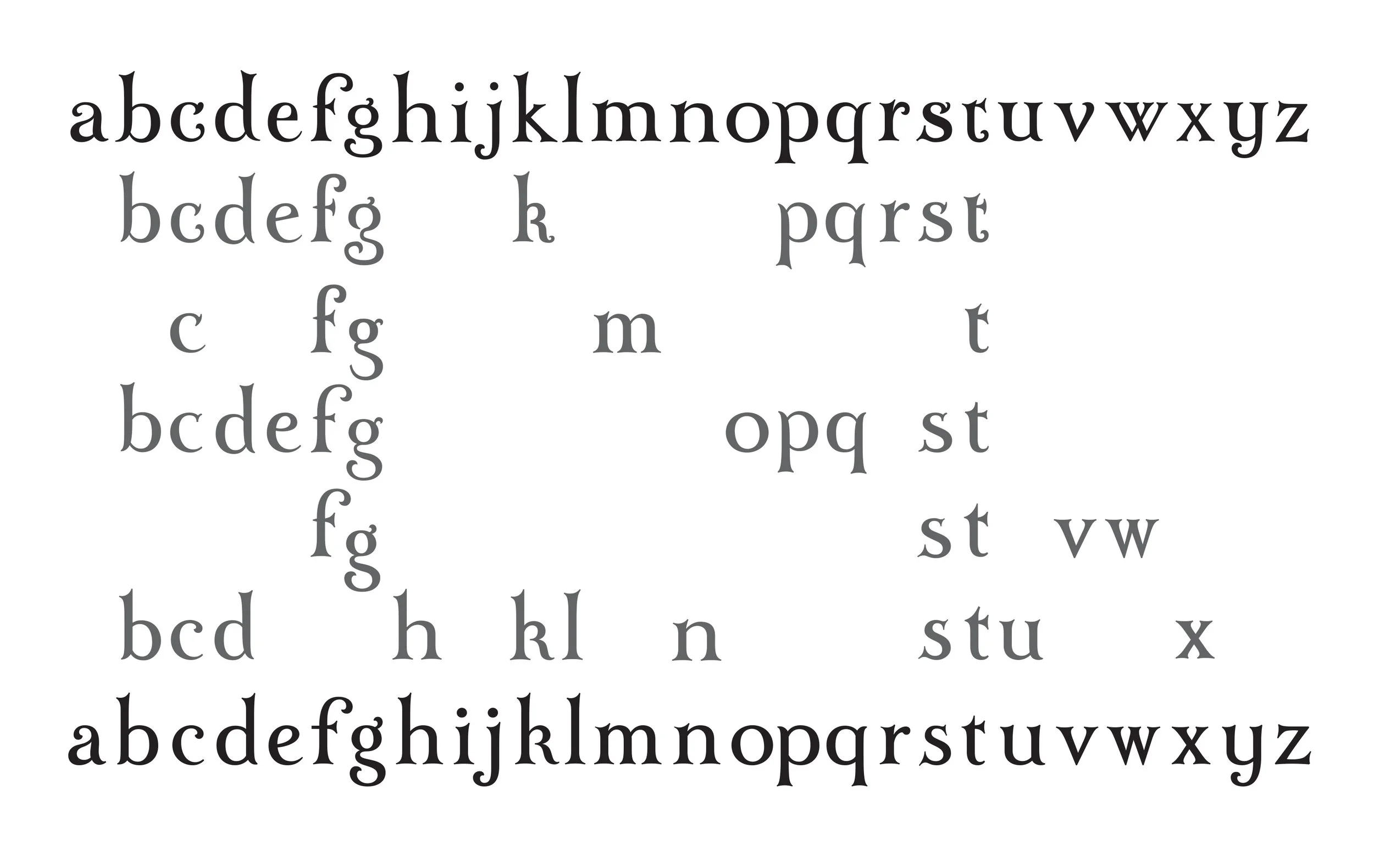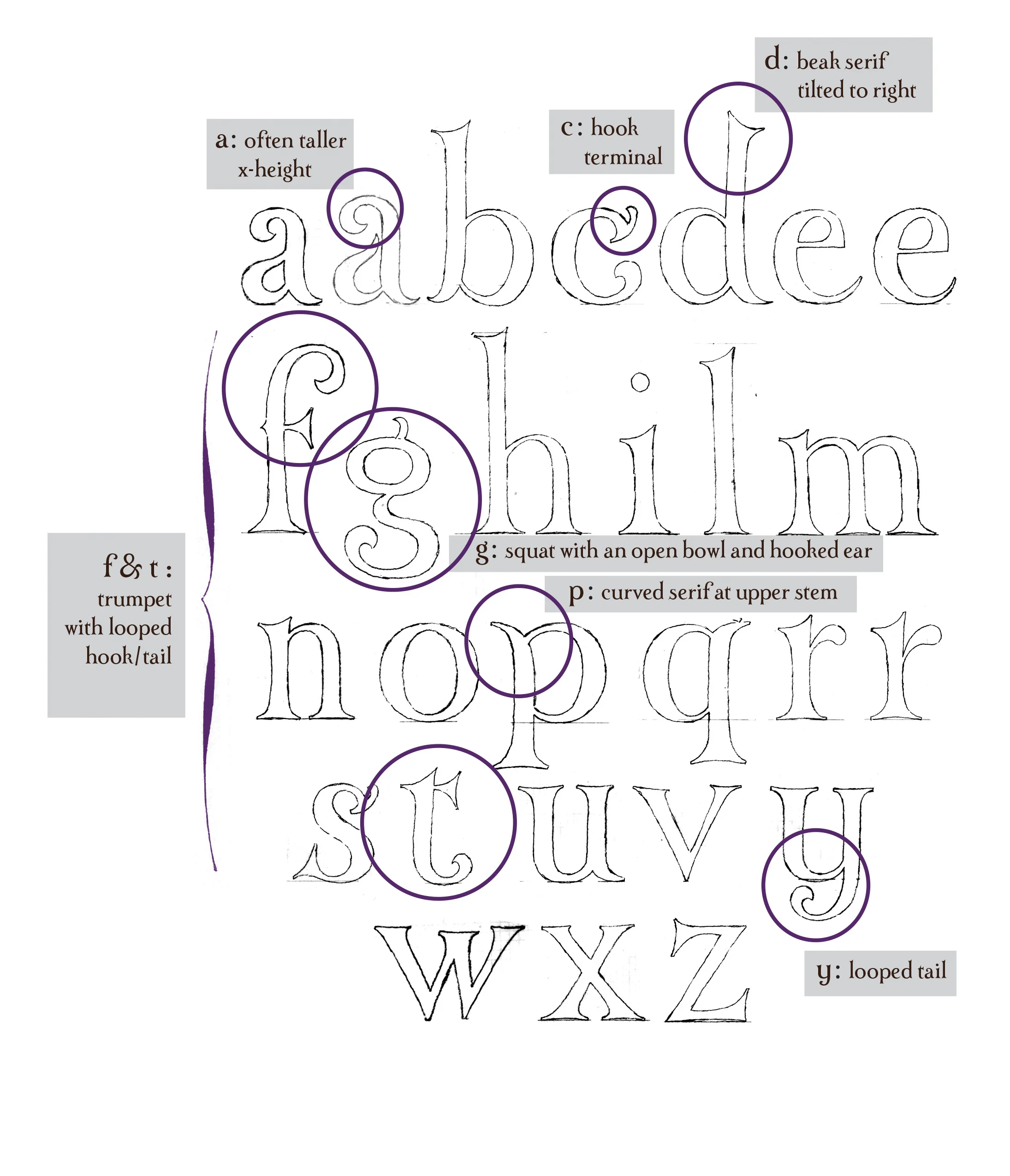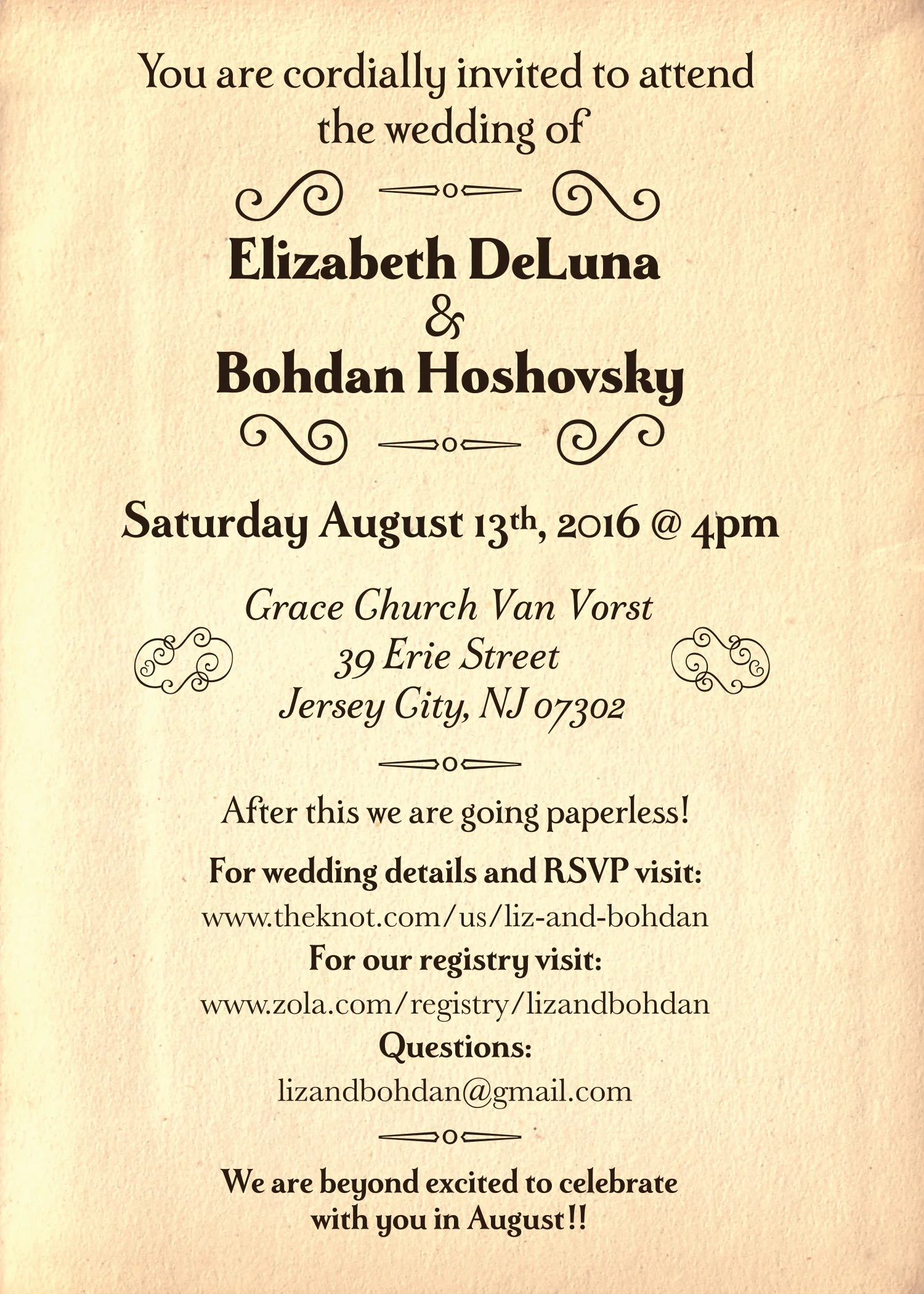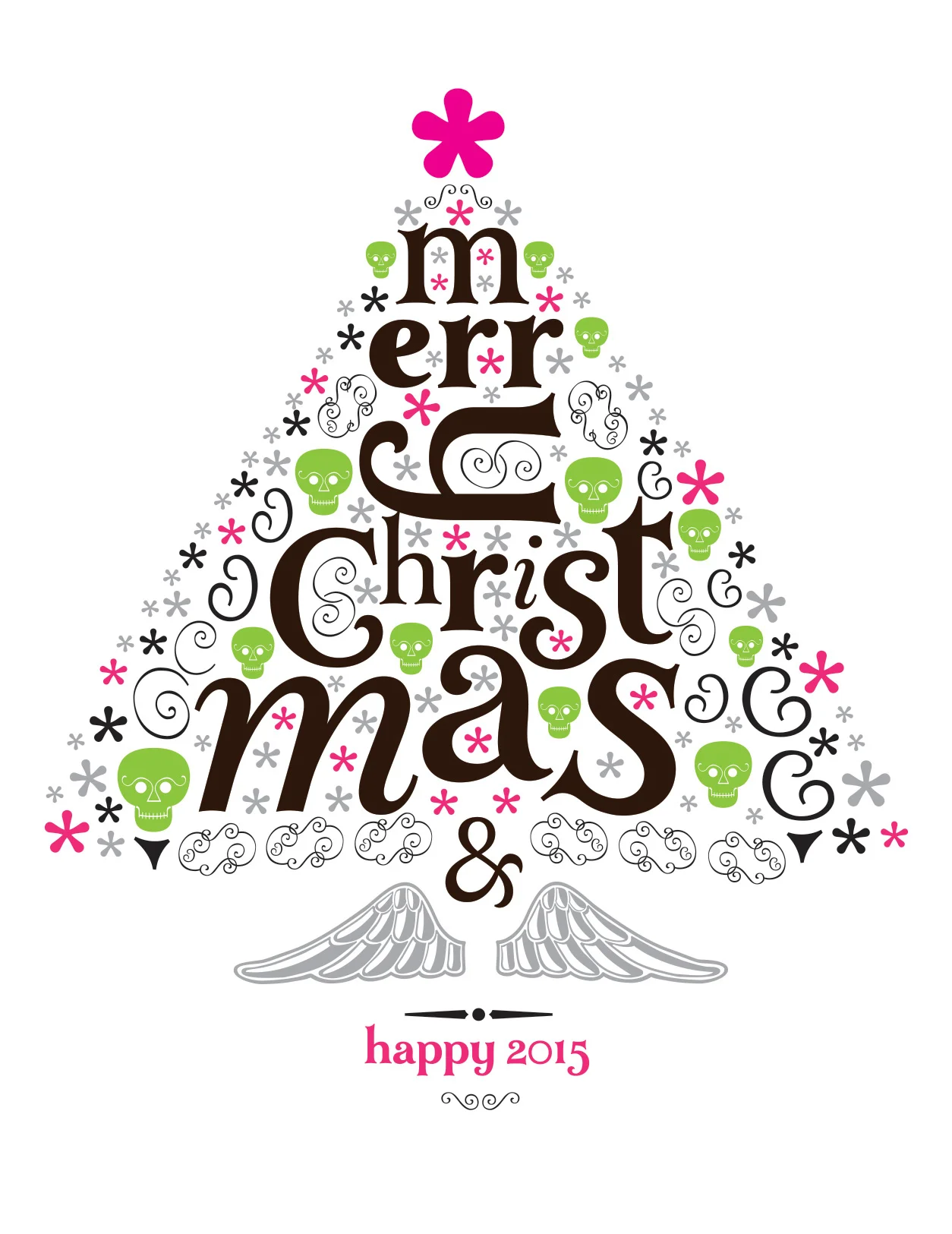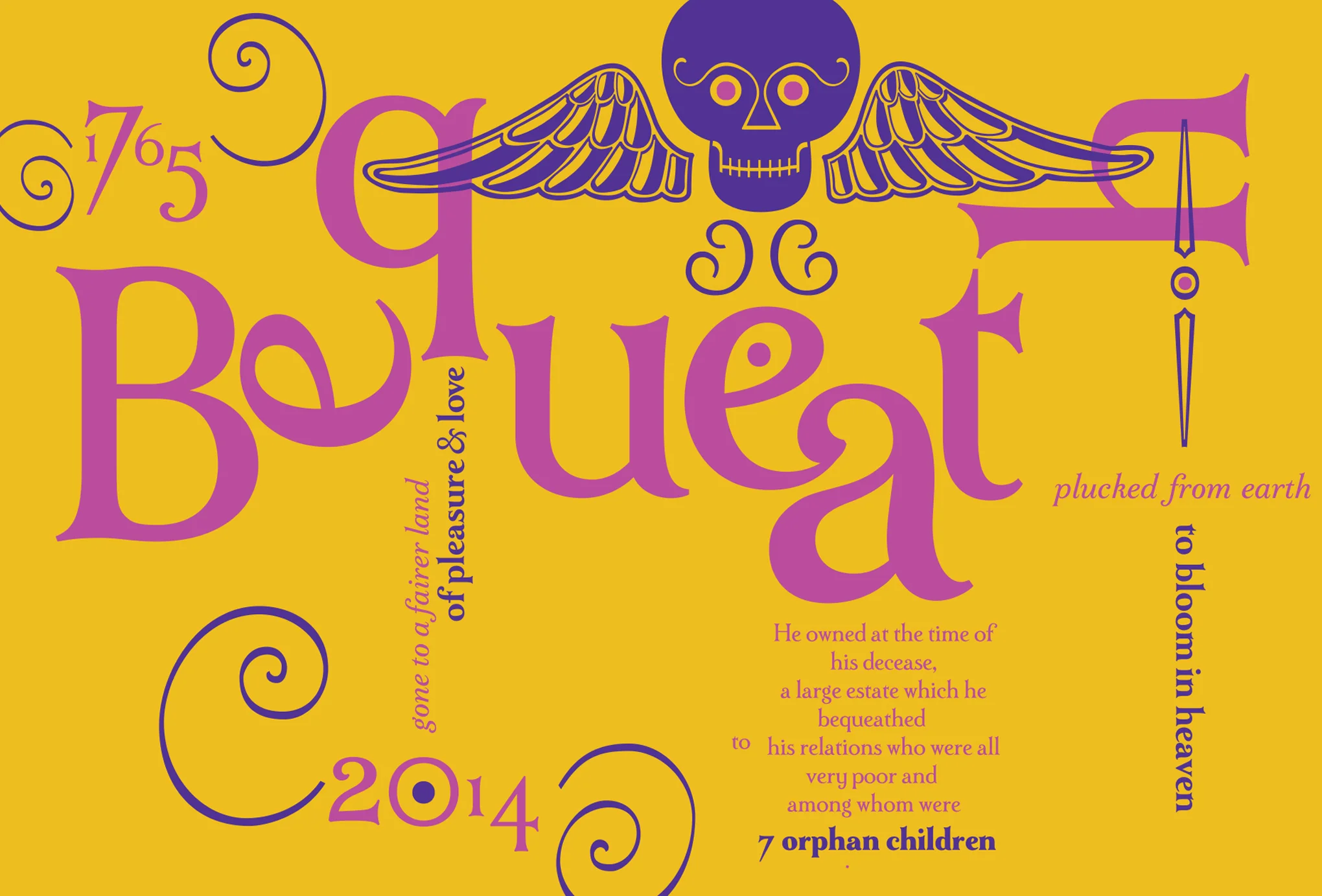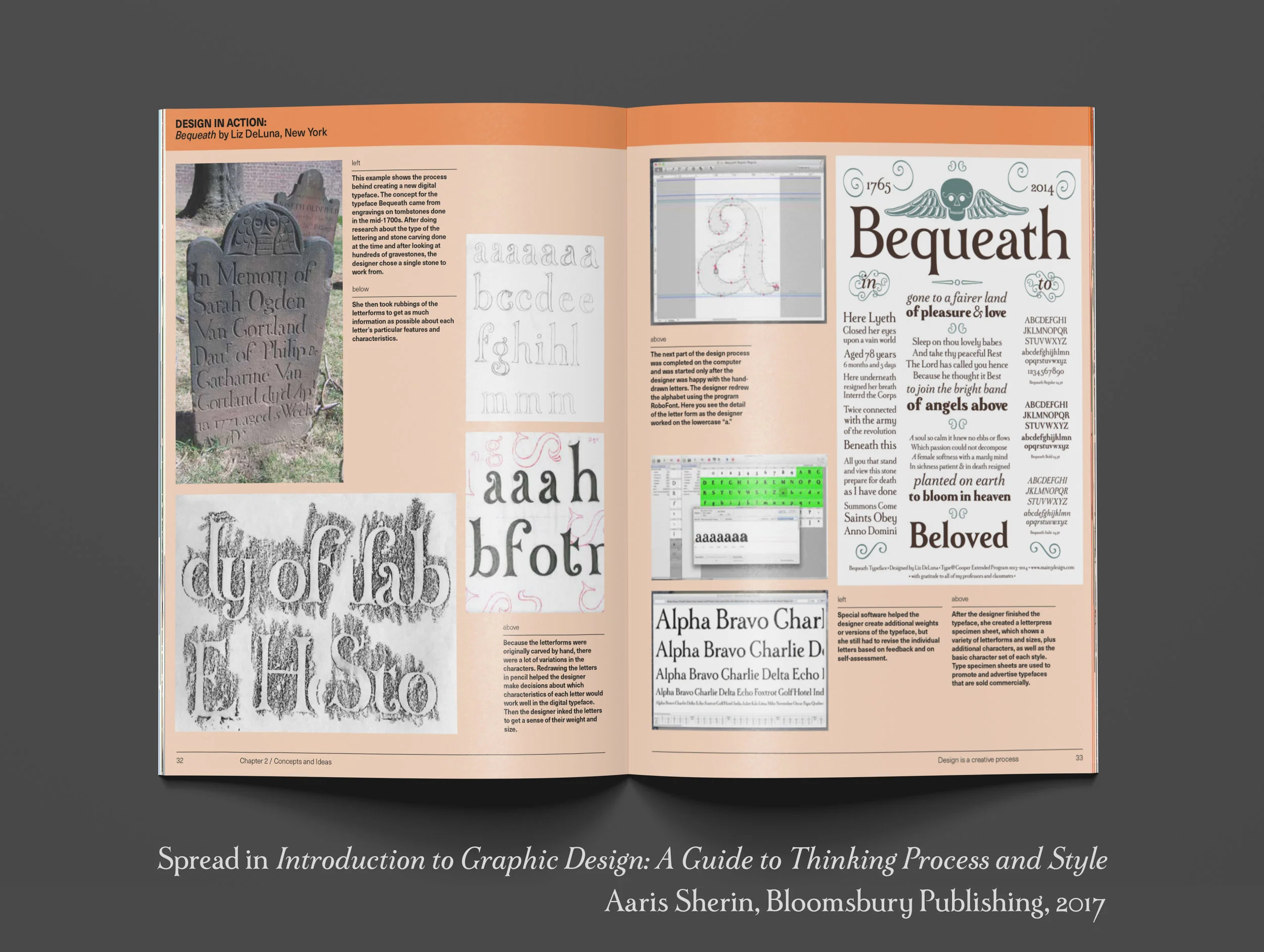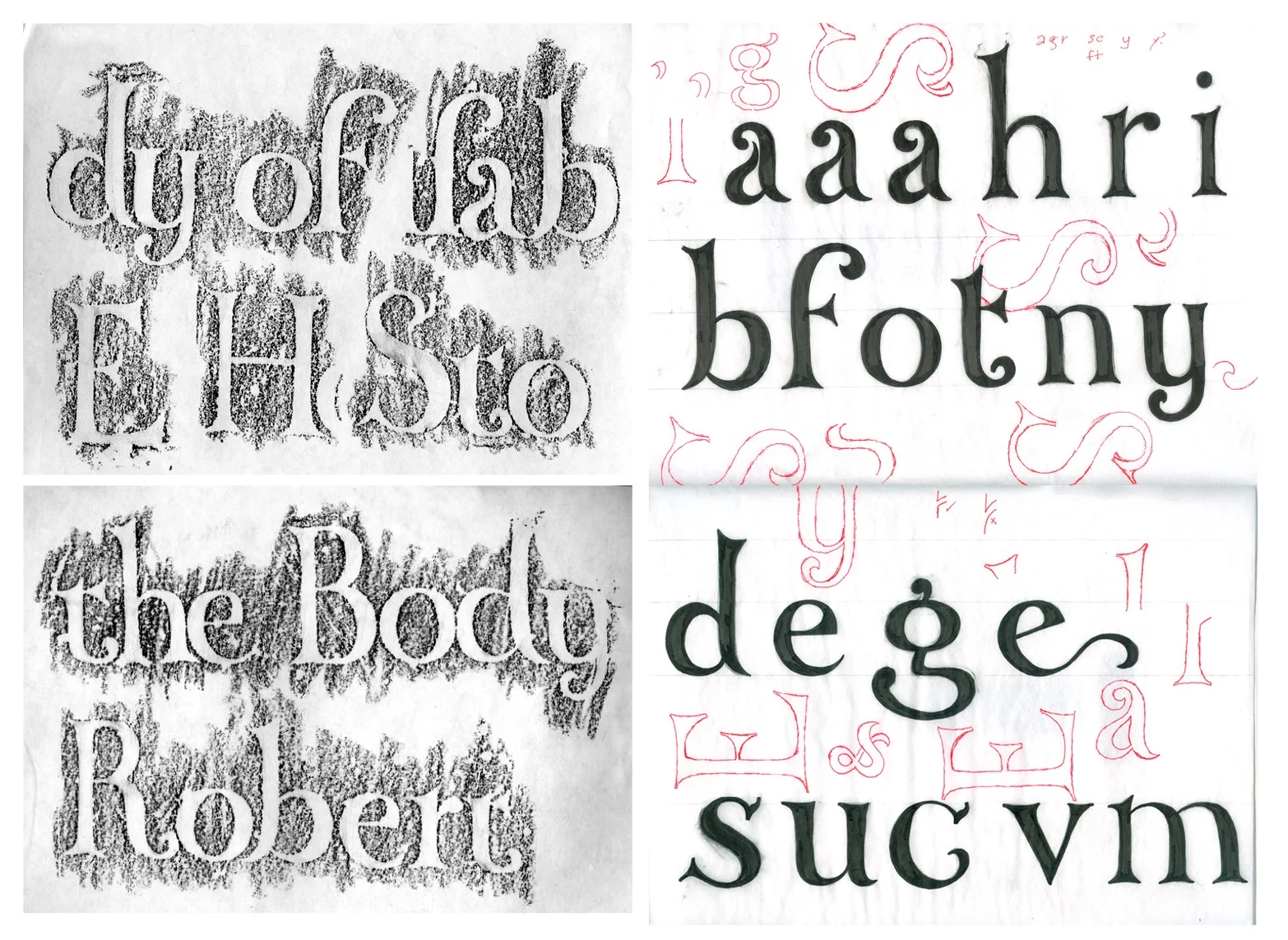
Bequeath Typeface
Bequeath //
a typeface is based on gravestone inscriptions carved by Uzal Ward between 1752 and 1792. Ward’s lettering style was expressive with a tall x-height, curled finials and a trumpeted lower case t and f. For some of the glyphs alternates were created, in order to include some of the more atypical letter forms, like the slanted uppercase A. Glyphs were also created for the death heads and some of the other decorative flourishes on the headstones. The intention was to create a distinctive digital typeface for use in contemporary design contexts, with reverence to its historical roots.
Included in the images are:
Some of the characteristic features of the typeface &
10 weeks of letter form iterations....
plus rubbings, postcards, posters, spec sheets and design examples.
A spread on the design process is published in:
Introduction to Graphic Design: A Guide to Thinking, Process and Style
By Aaris Sherin